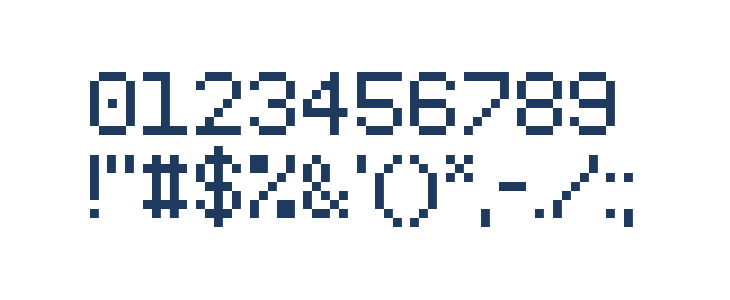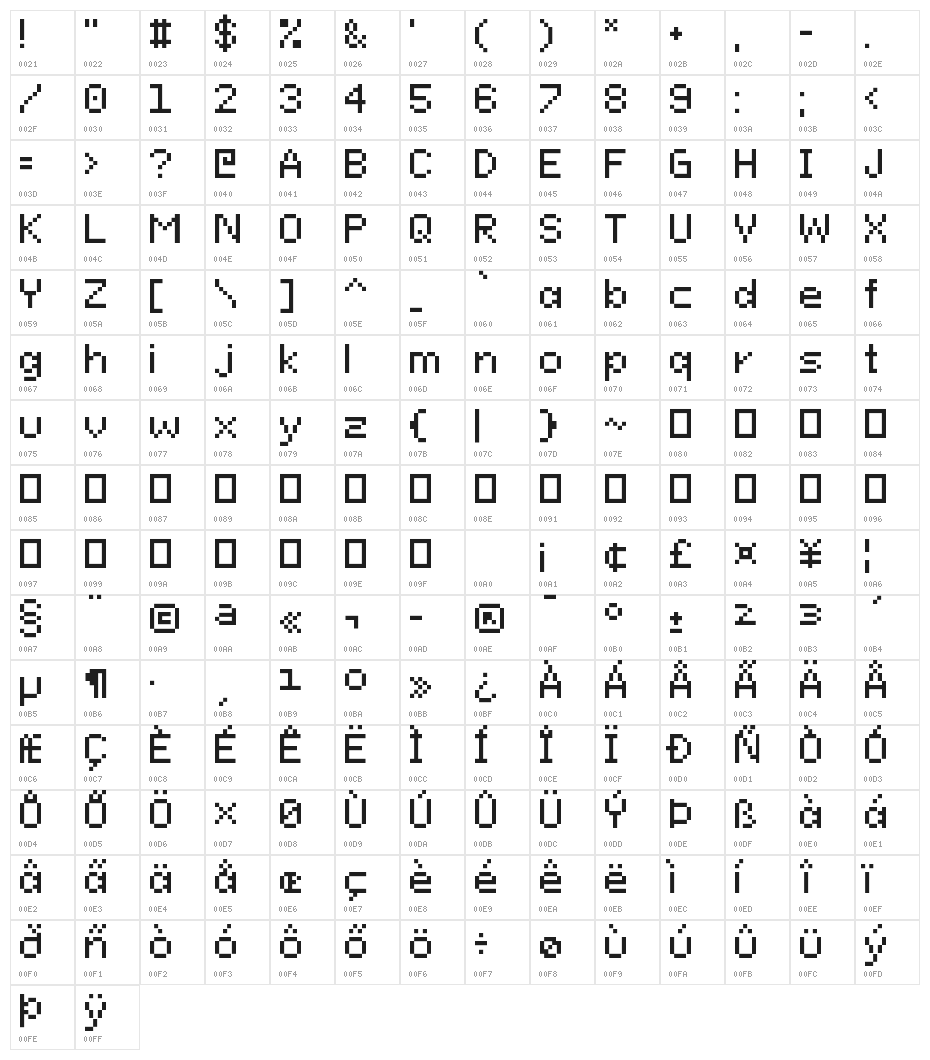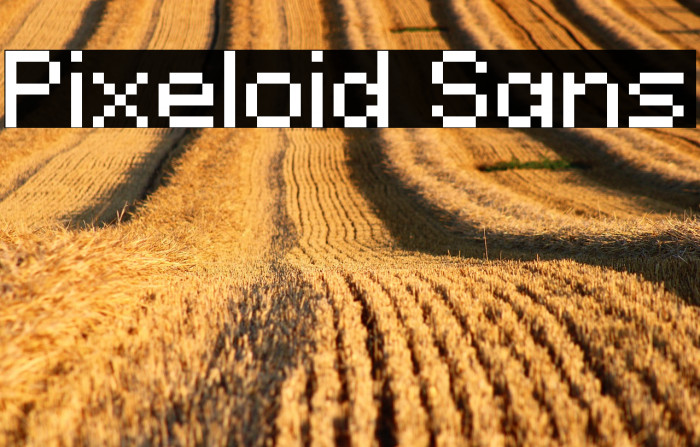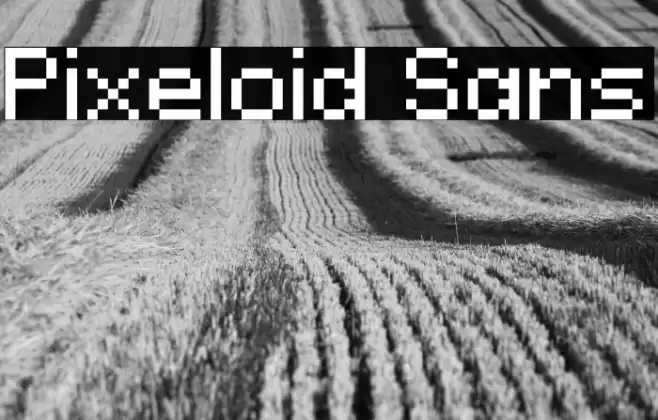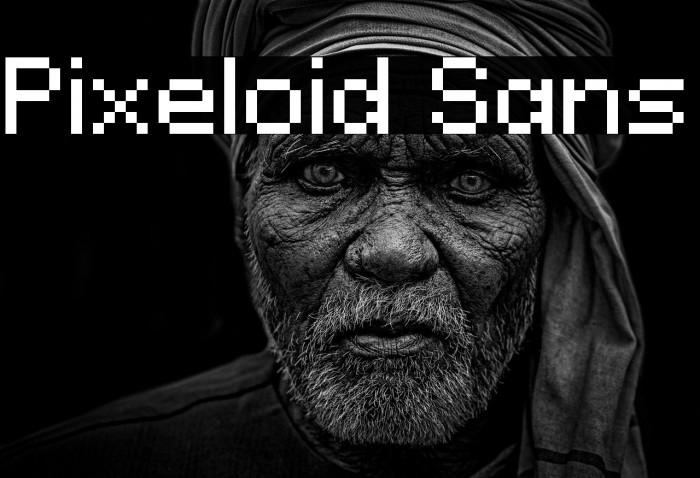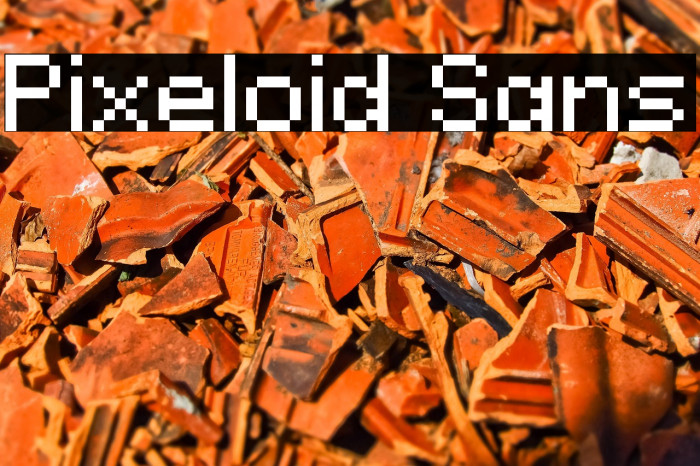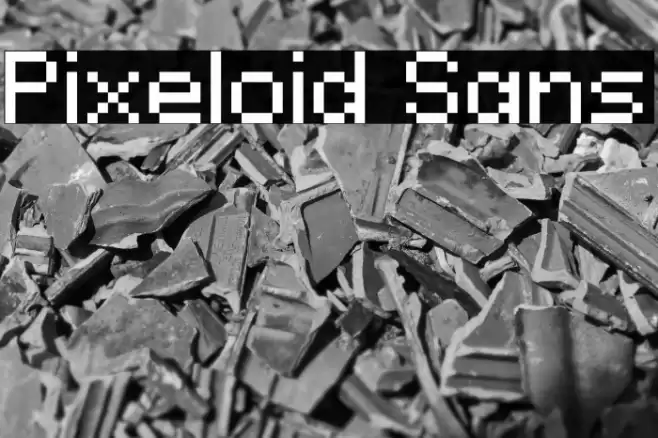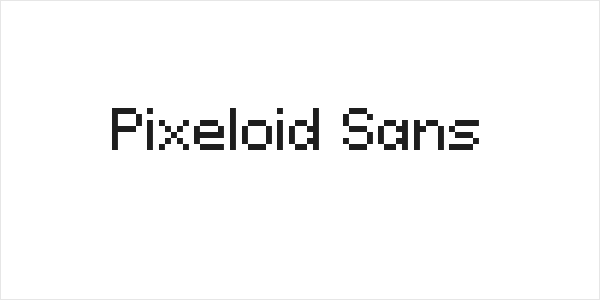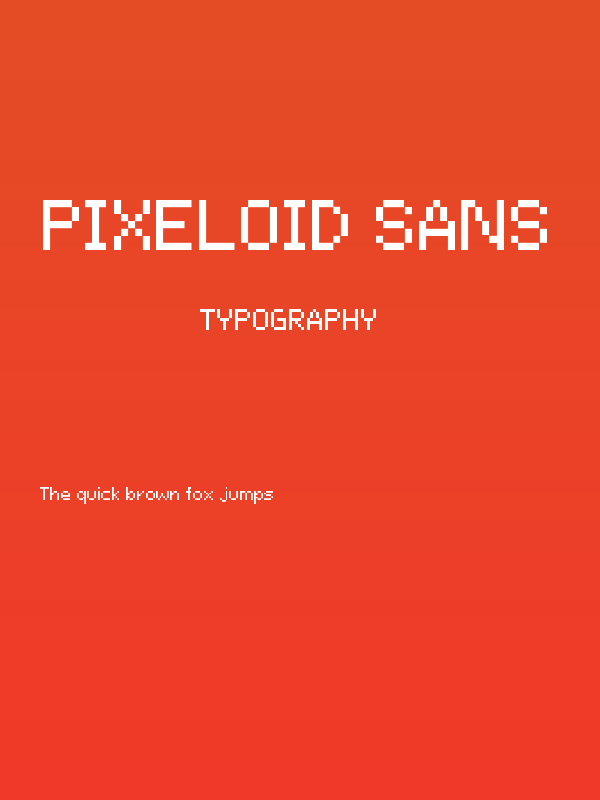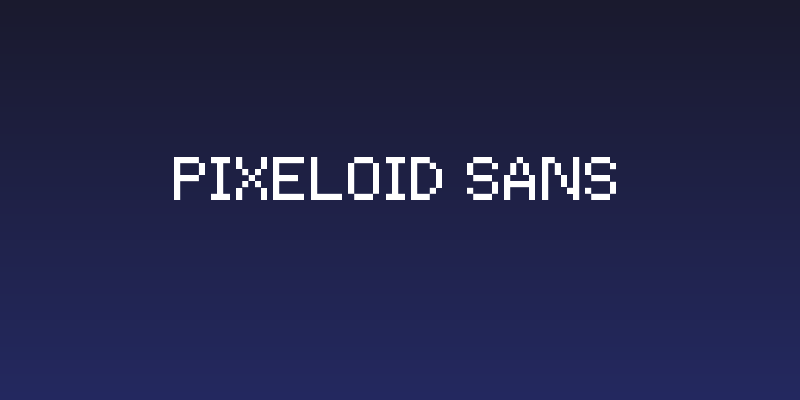
Pixeloid Sans Font
Pixeloid Sans Description
This font features a pixelated, blocky design reminiscent of early digital displays and retro video games. Each character is constructed with a grid-like precision, giving it a distinctly digital and geometric appearance. The uppercase and lowercase letters maintain a consistent height, contributing to a uniform look. The numerals and special characters follow the same pixelated style, ensuring a cohesive visual experience across all text elements. The font's simplicity and clarity make it highly legible, even at smaller sizes, while its unique style adds a nostalgic, tech-inspired flair to any project.
| Use Case | Headlines, Logos, Digital displays |
| Proposed Projects | Ideal for video game design, tech-themed posters, digital art projects, and retro-inspired branding. |